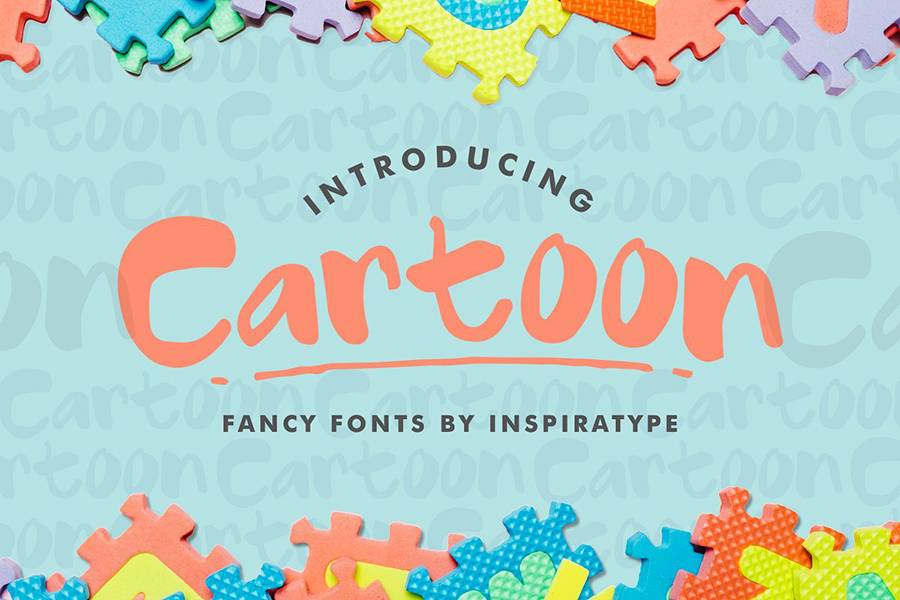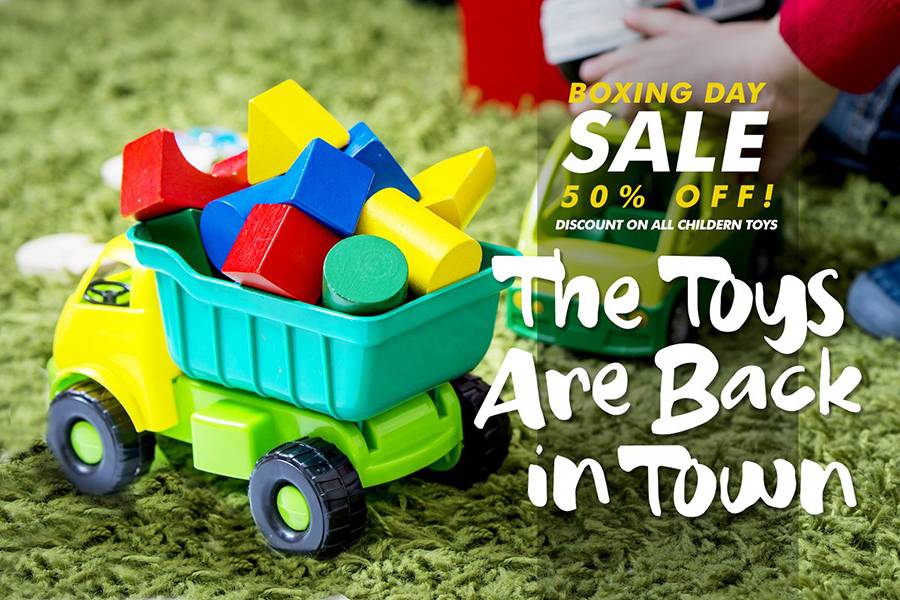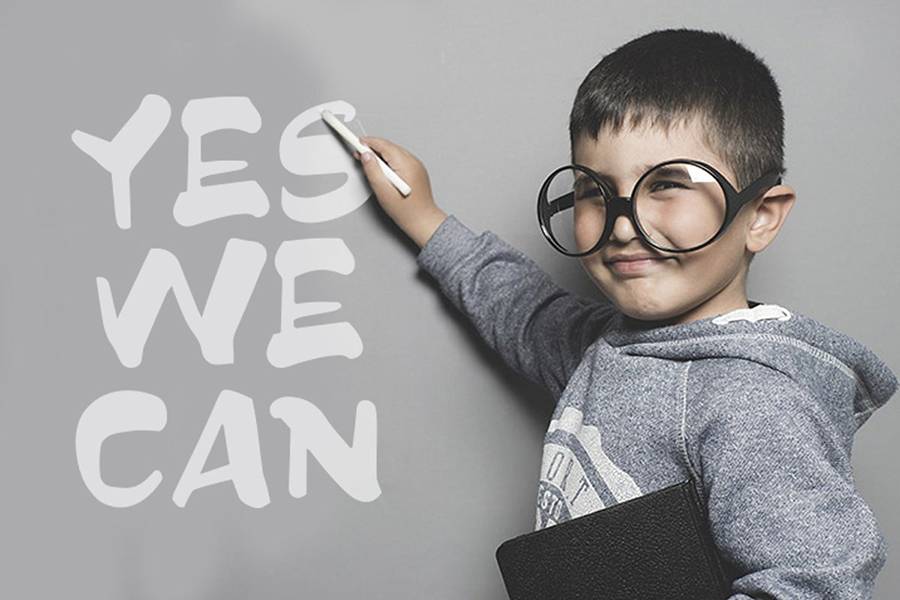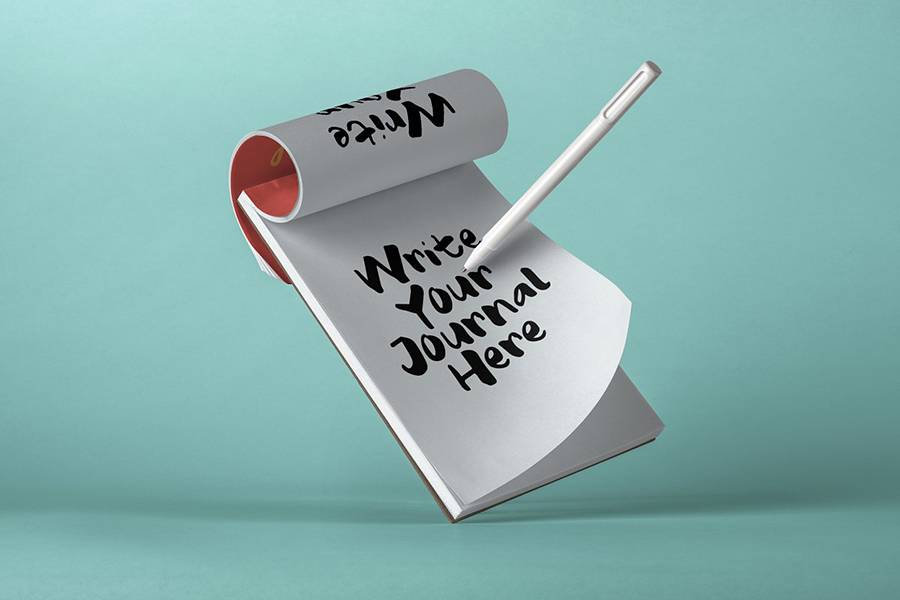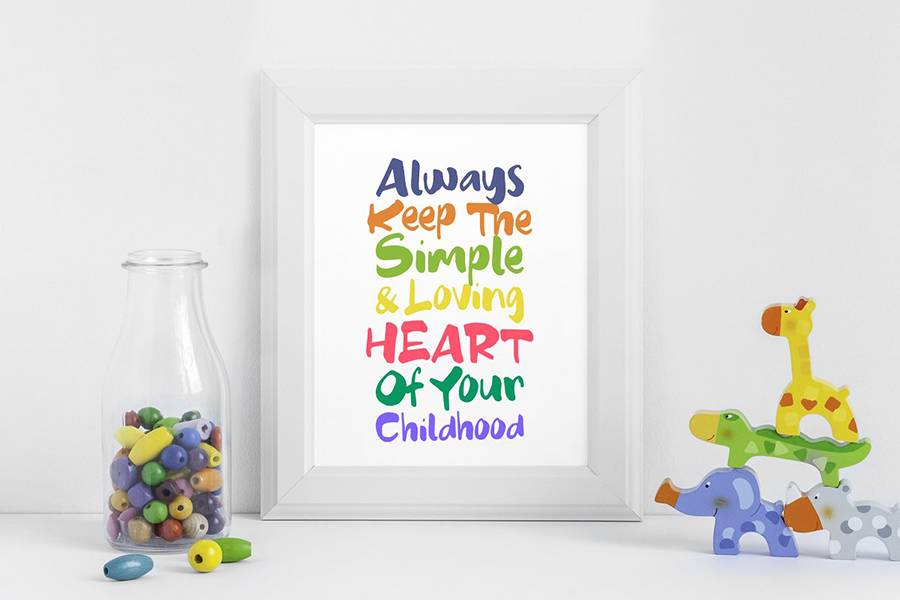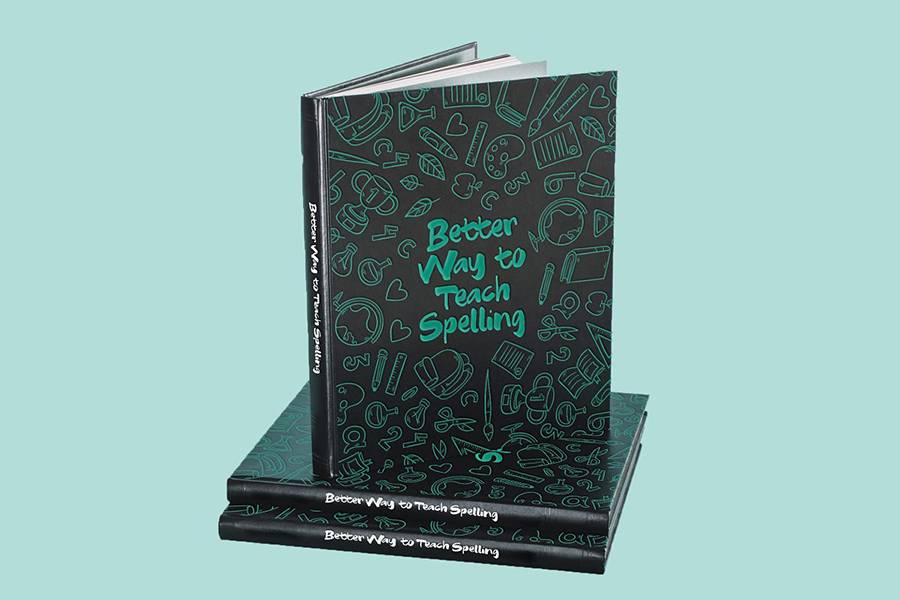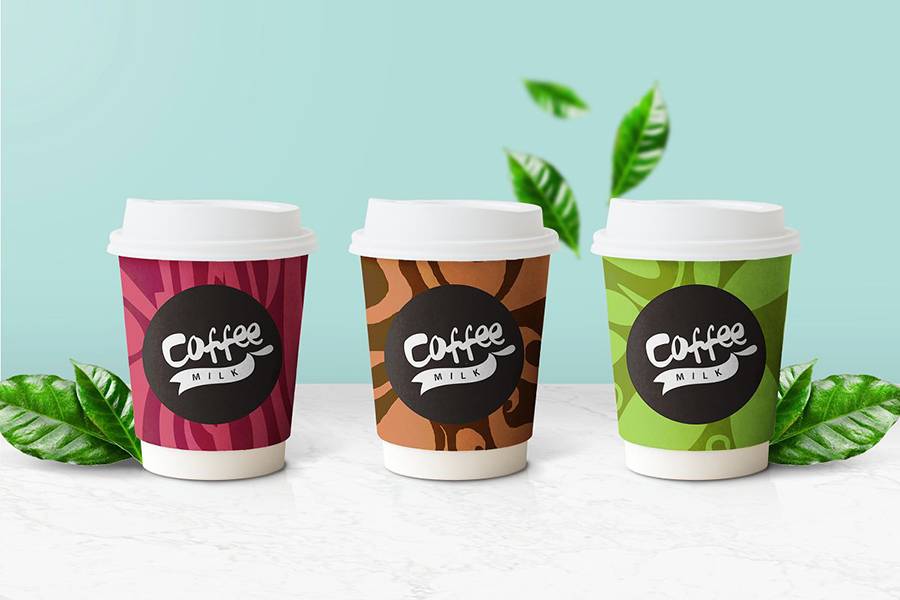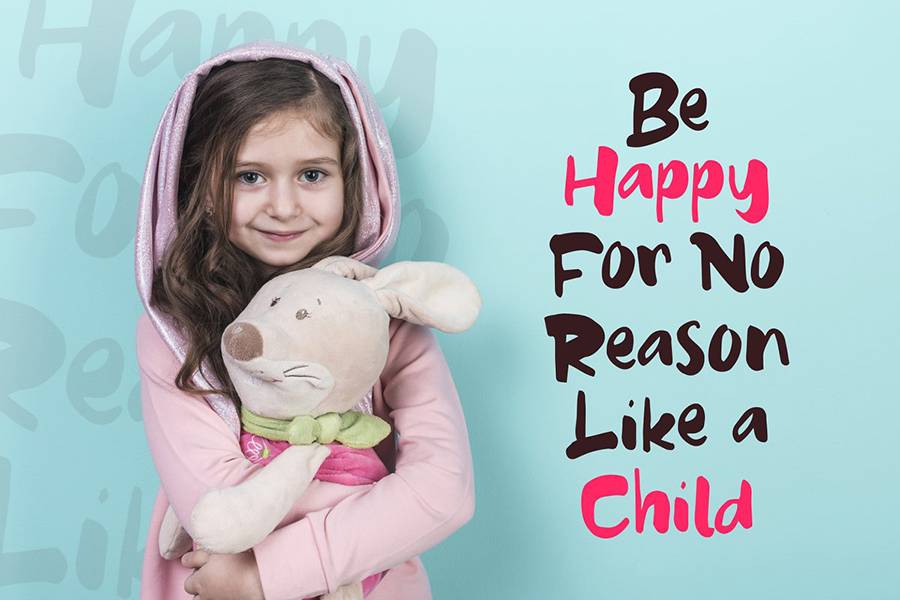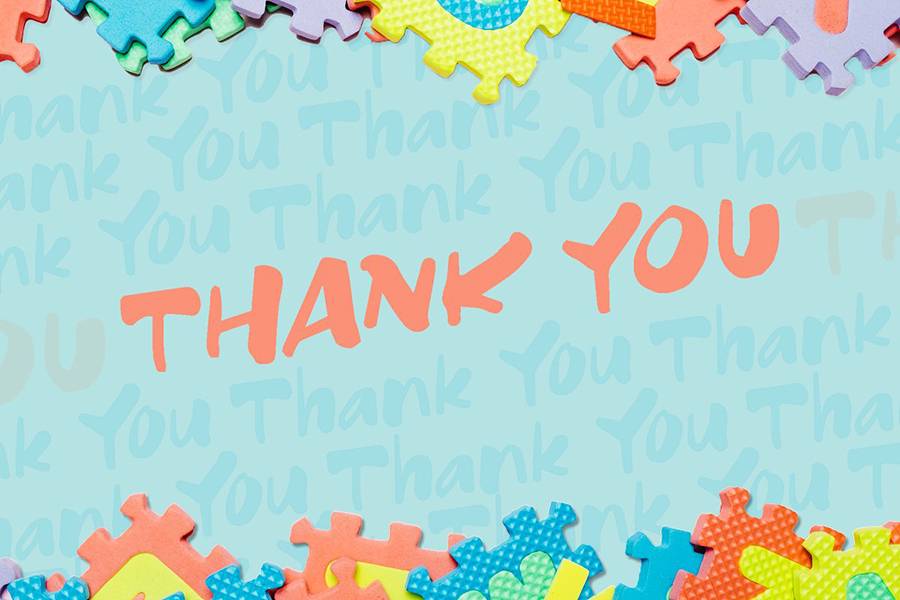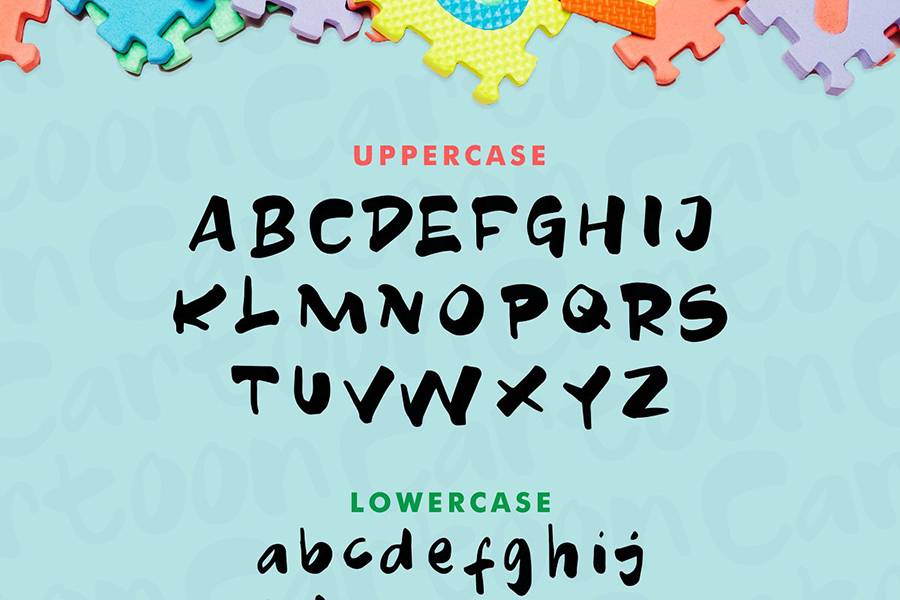
Cartoon Fancy Font Demo is a playful and bold sans serif typeface with a hand-drawn, casual feel. Its thick strokes, uneven shapes, and lively character give it a fun, approachable personality ideal for children’s content, comics, or informal branding. This font works best in headlines, logos, and posters that need a whimsical, energetic touch.
Cartoon Fancy Font Demo
About Cartoon Fancy Font Demo
| Font family | Cartoon Fancy Font Demo |
| Designer | inspiratype |